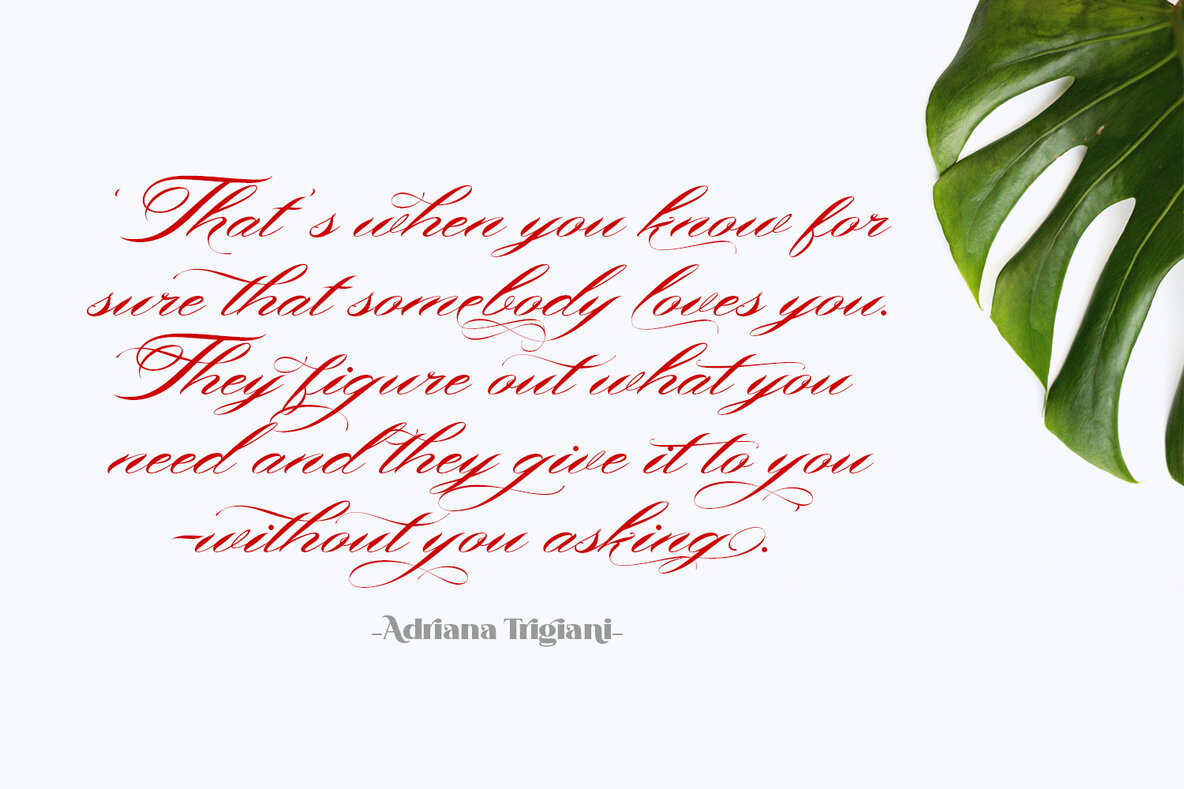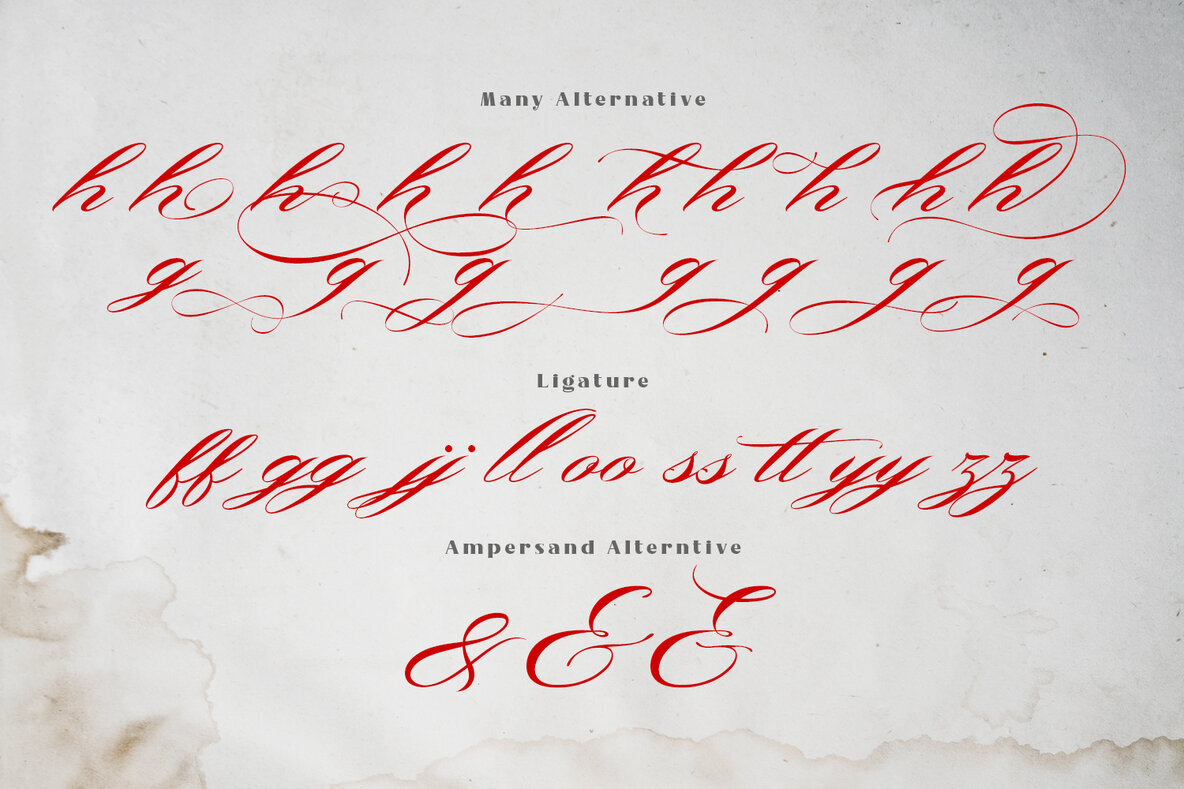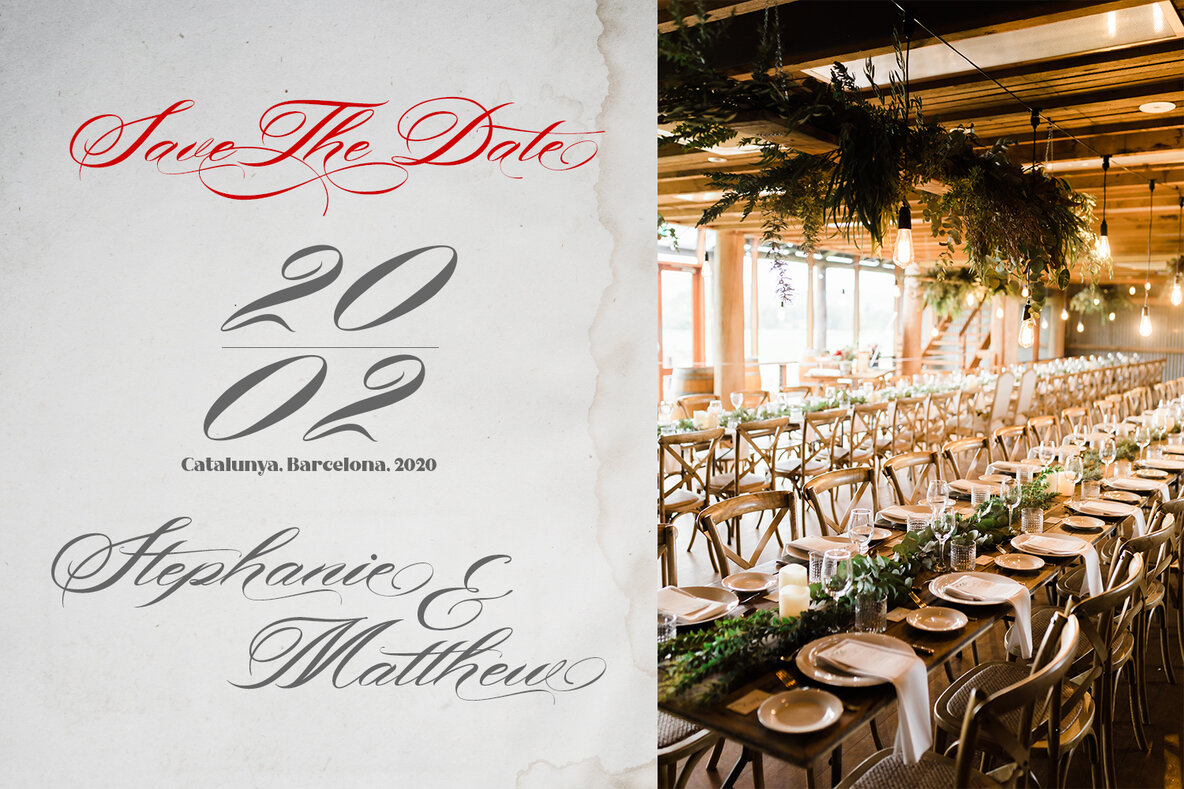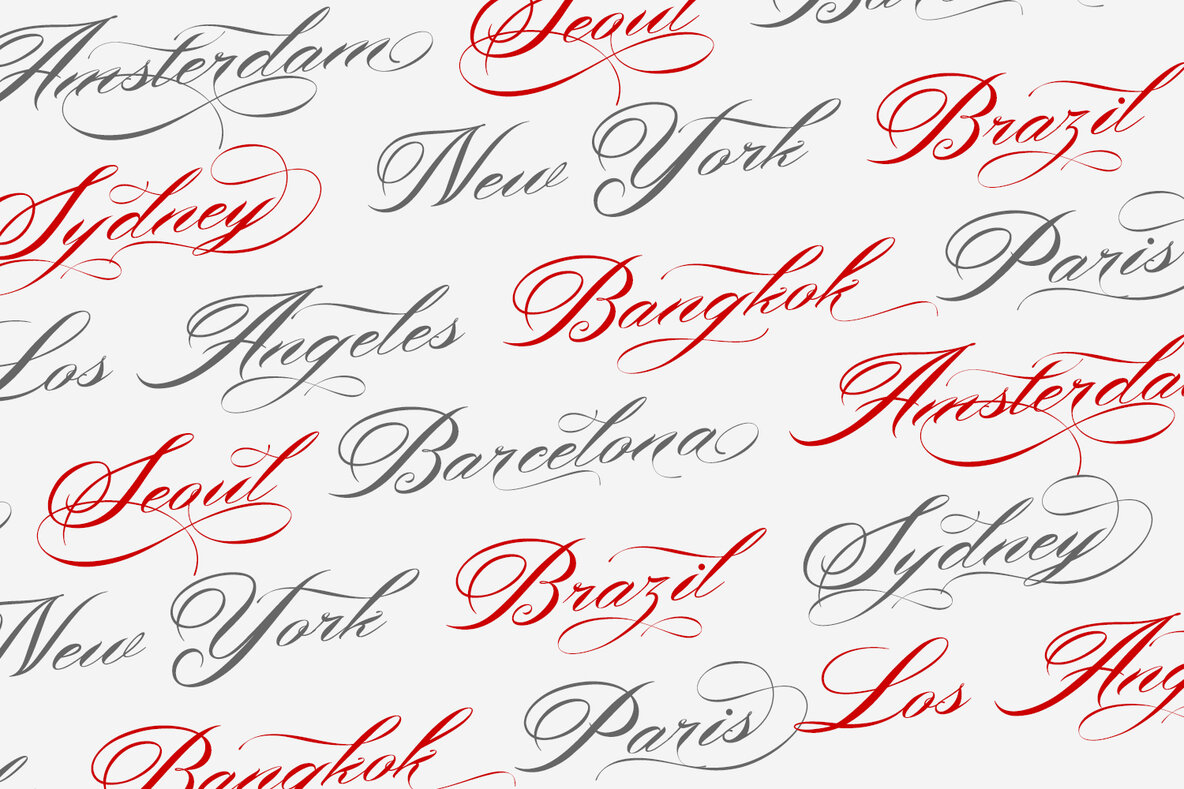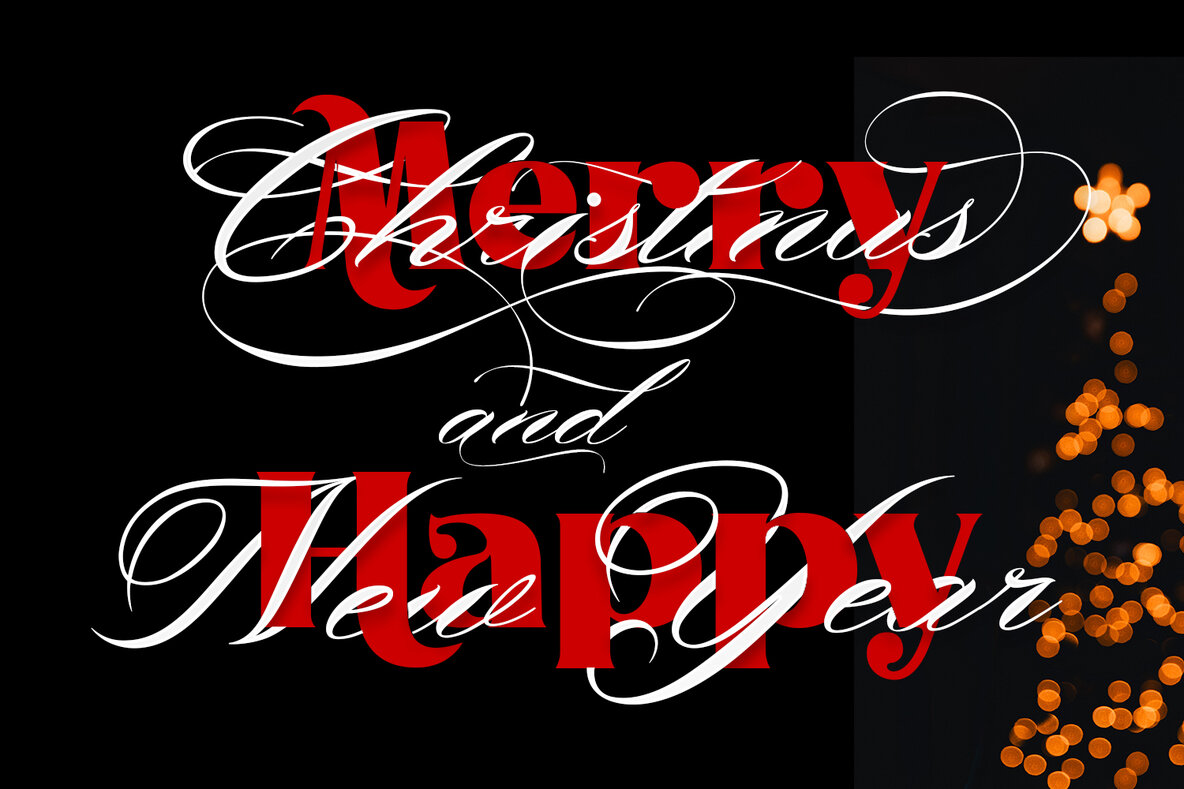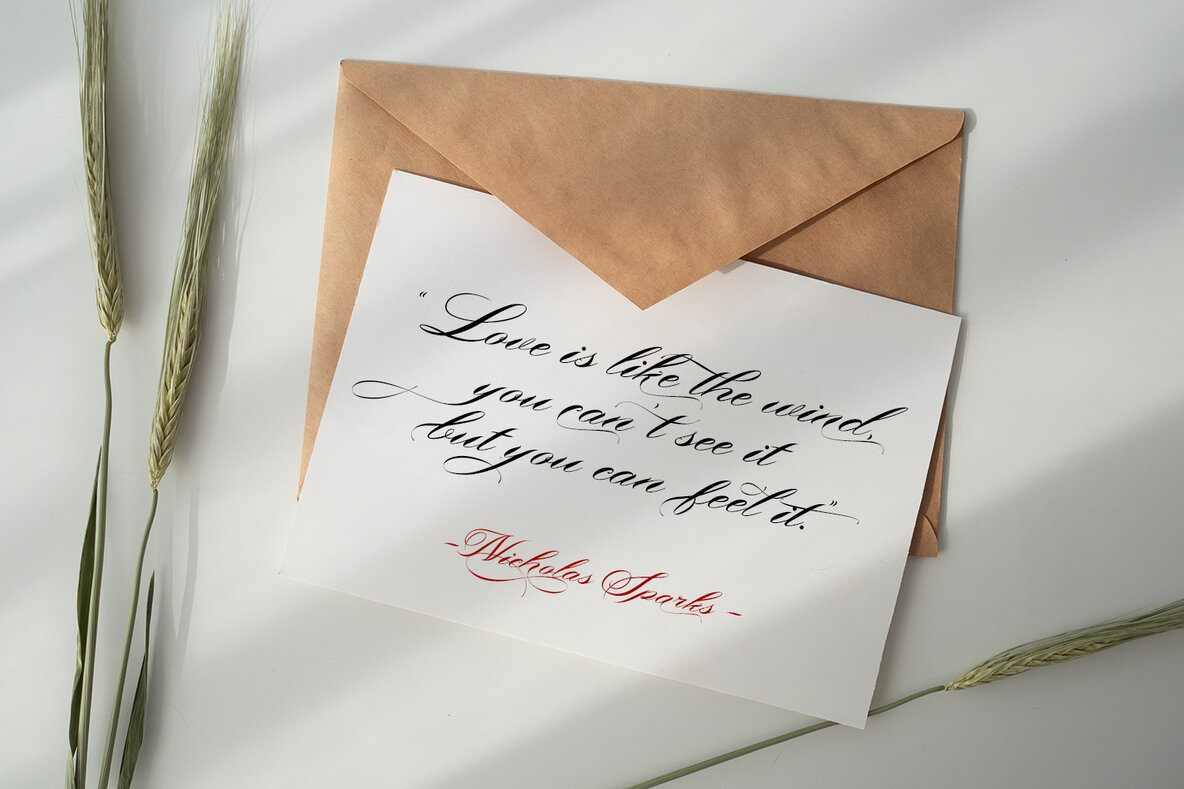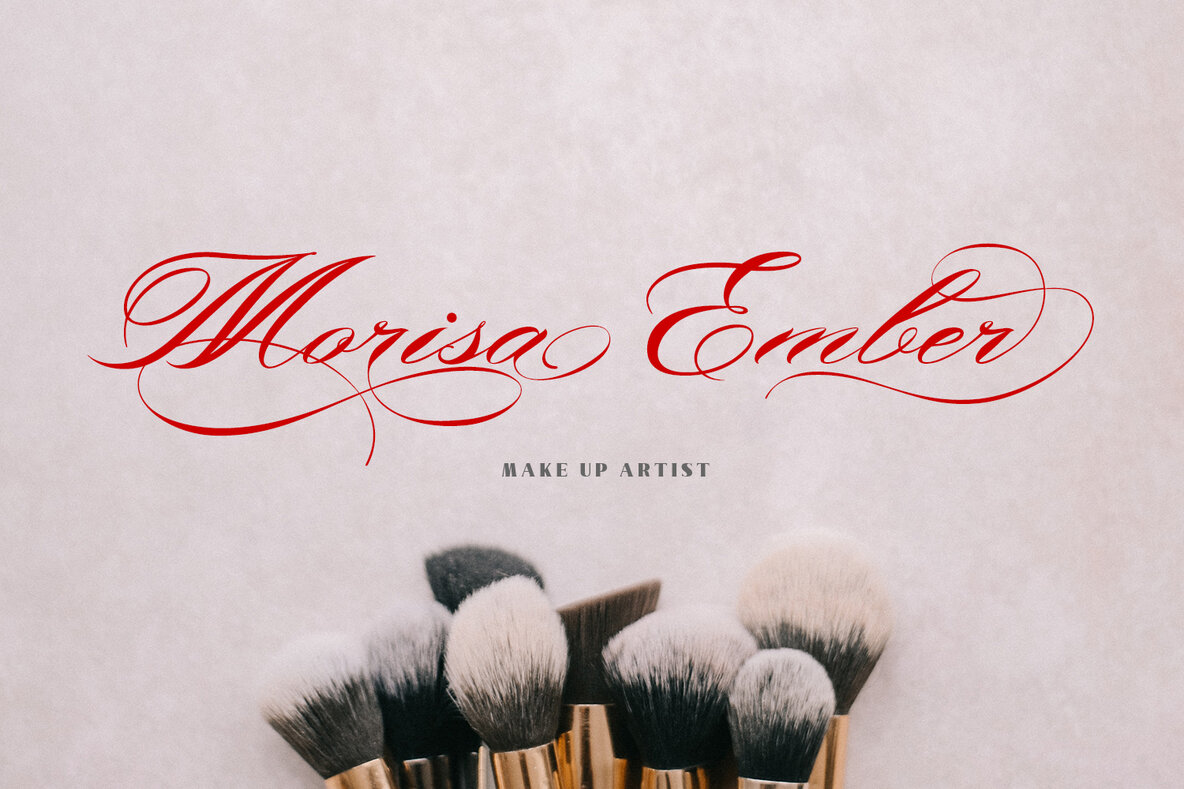
Bonthing Font
Bonthing Regular
Bonthing encapsulates the essence of luxury calligraphy, featuring exquisite ligatures and an extensive range of alternative glyphs. This typeface lends itself to creative endeavors across various mediums, offering ample opportunities for sophisticated layouts and compositions. Ideal for poster design, book covers, merchandise, and fashion campaigns, Bonthing also complements branding efforts, advertising, magazines, greeting cards, album covers, and quote designs. Let this refined calligraphy font elevate your project with its exceptional versatility and charm.Bonthing: Luxury Calligraphy with Elegant Ligatures